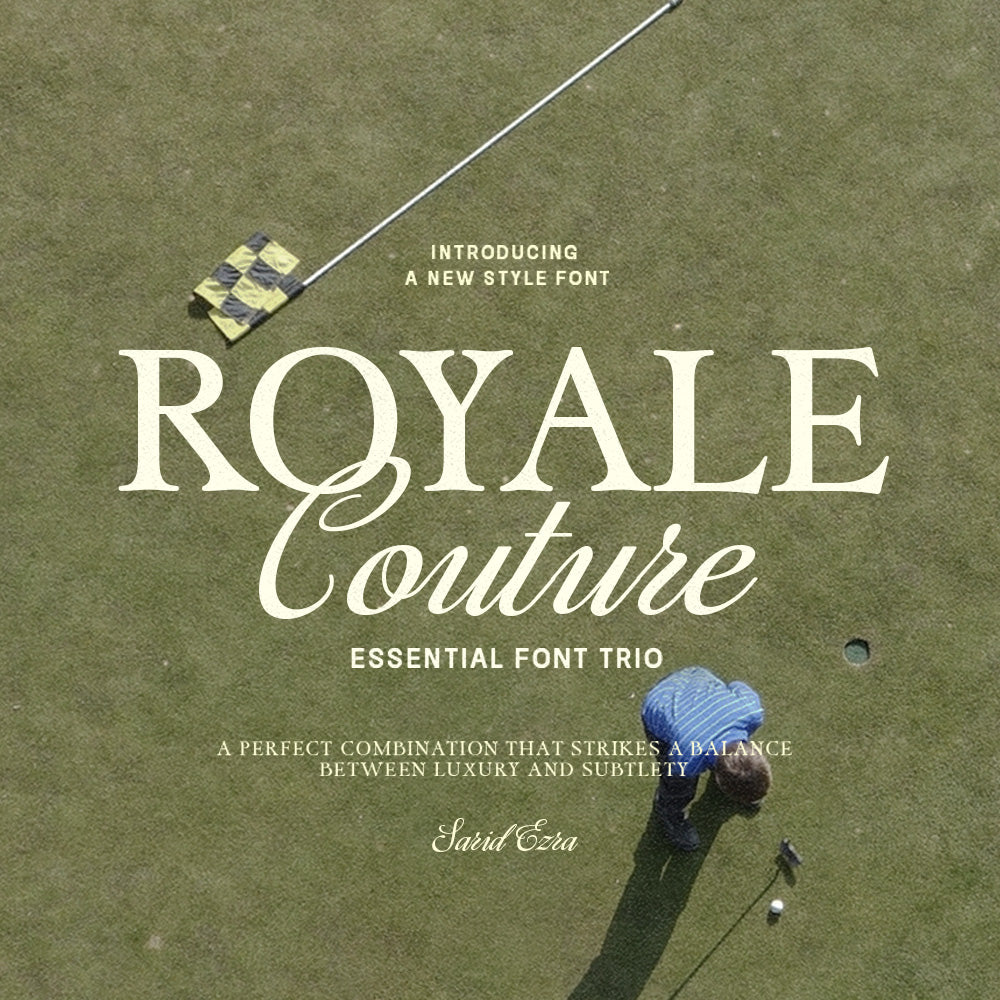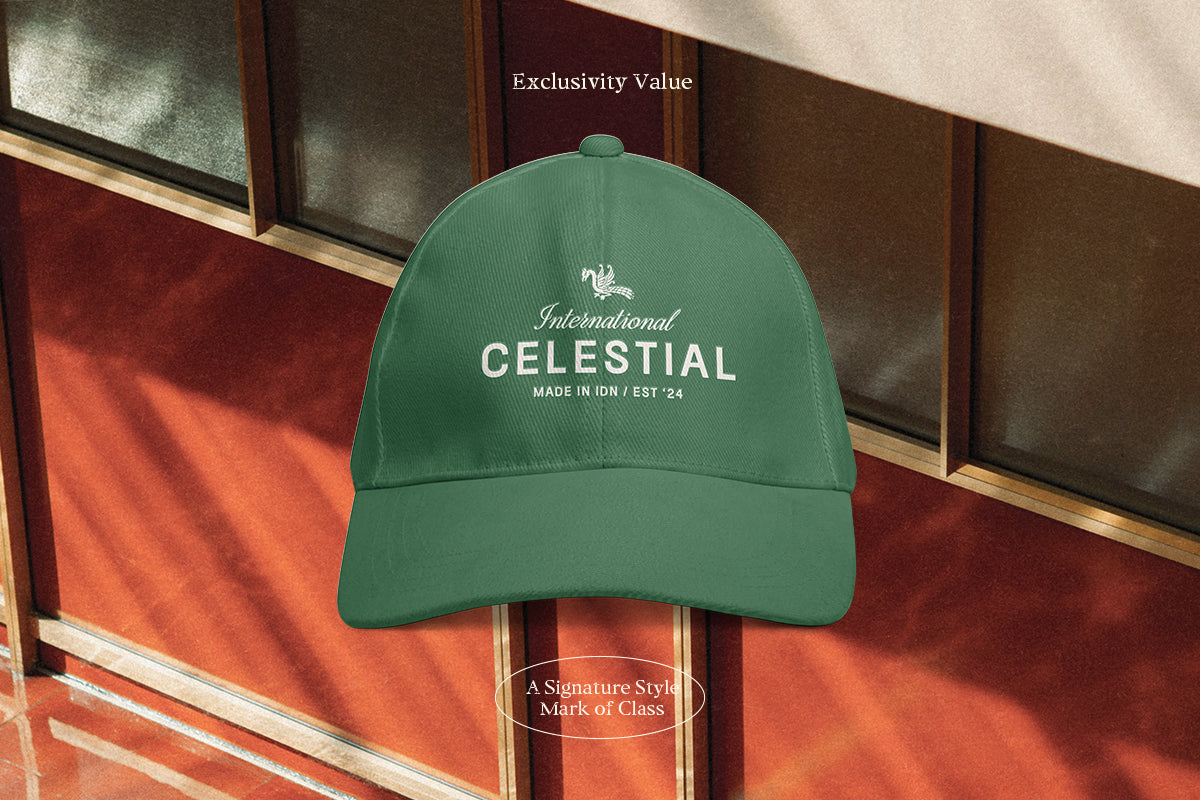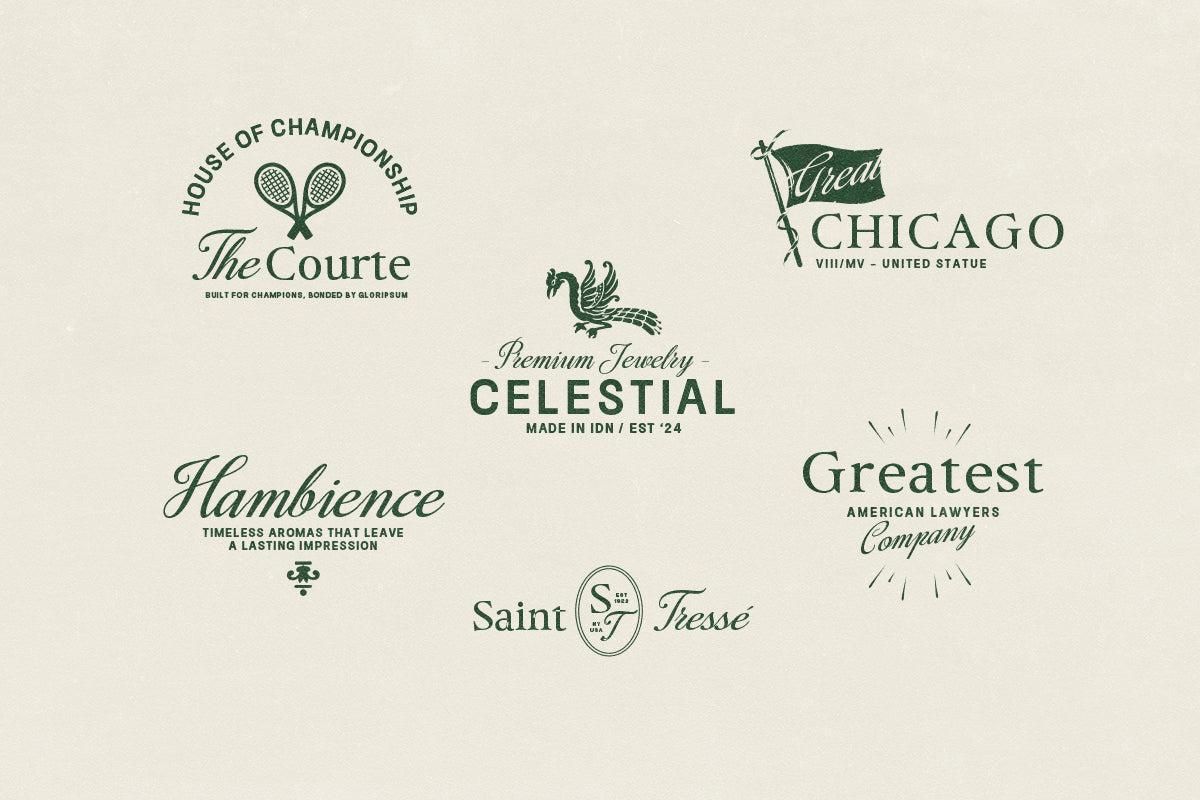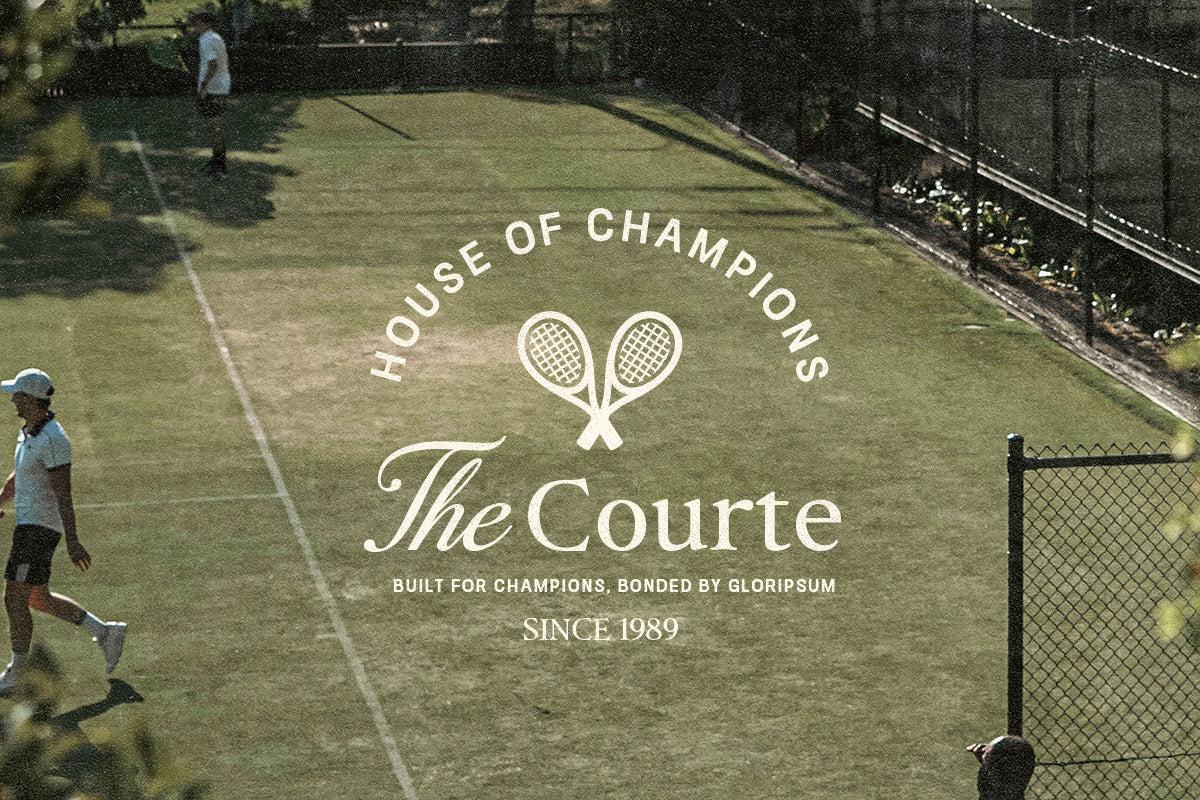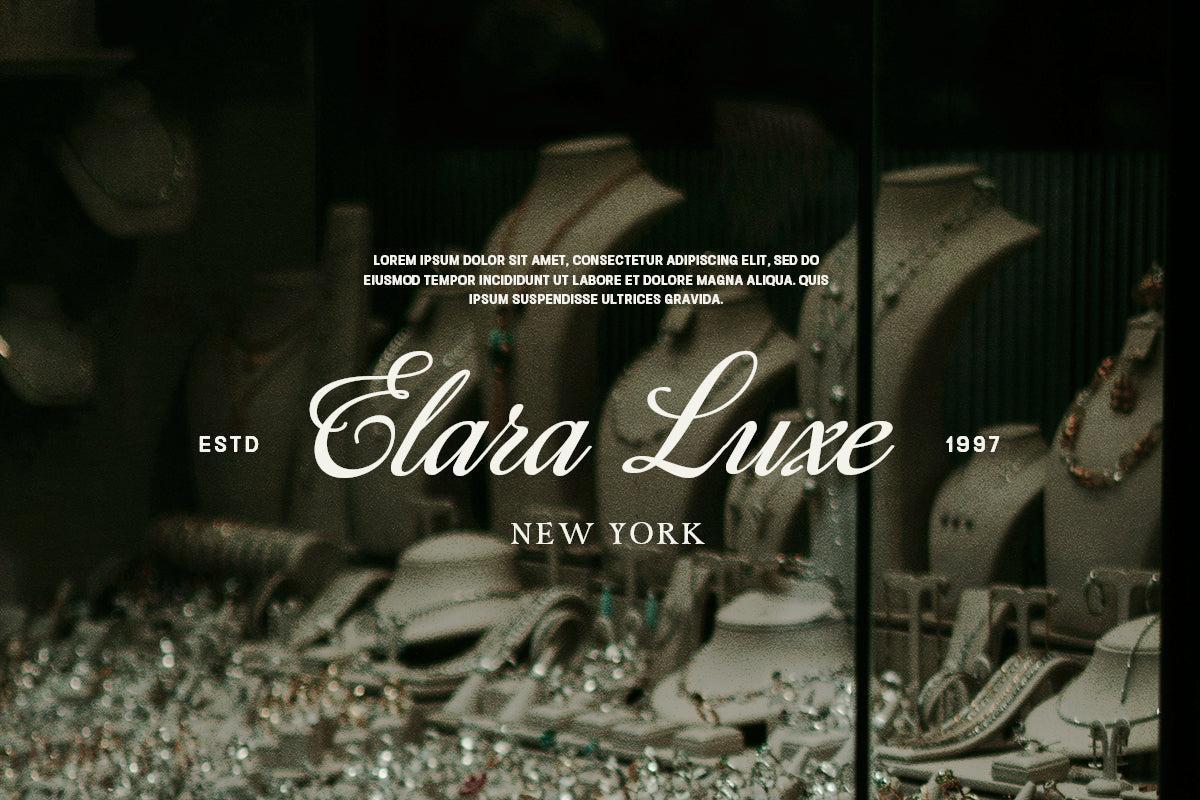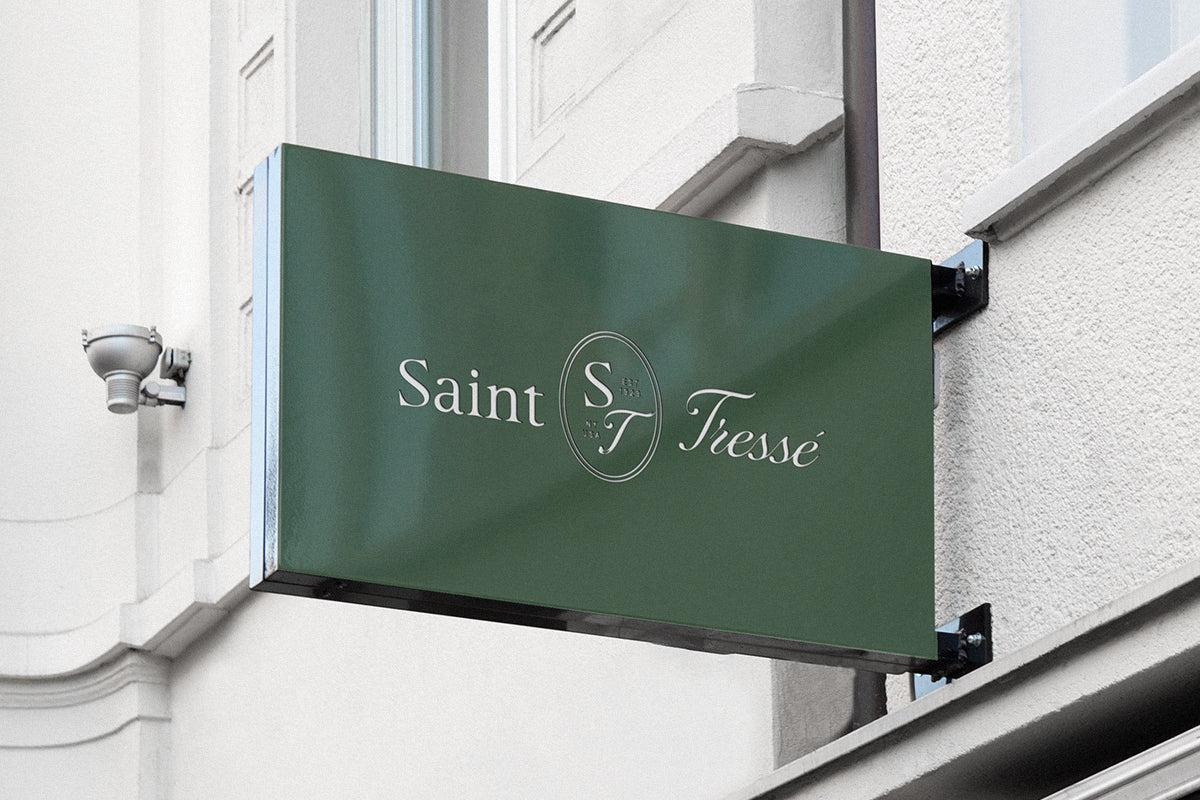
Royale Couture - Essential Font Trio
Royale Couture - Essential Font Trio includes three fonts: a bold serif, a classic sans, and a stylish script, all designed to complement each other. This font collection supports multilingual characters, numbers, and symbols, making it versatile for various design needs.